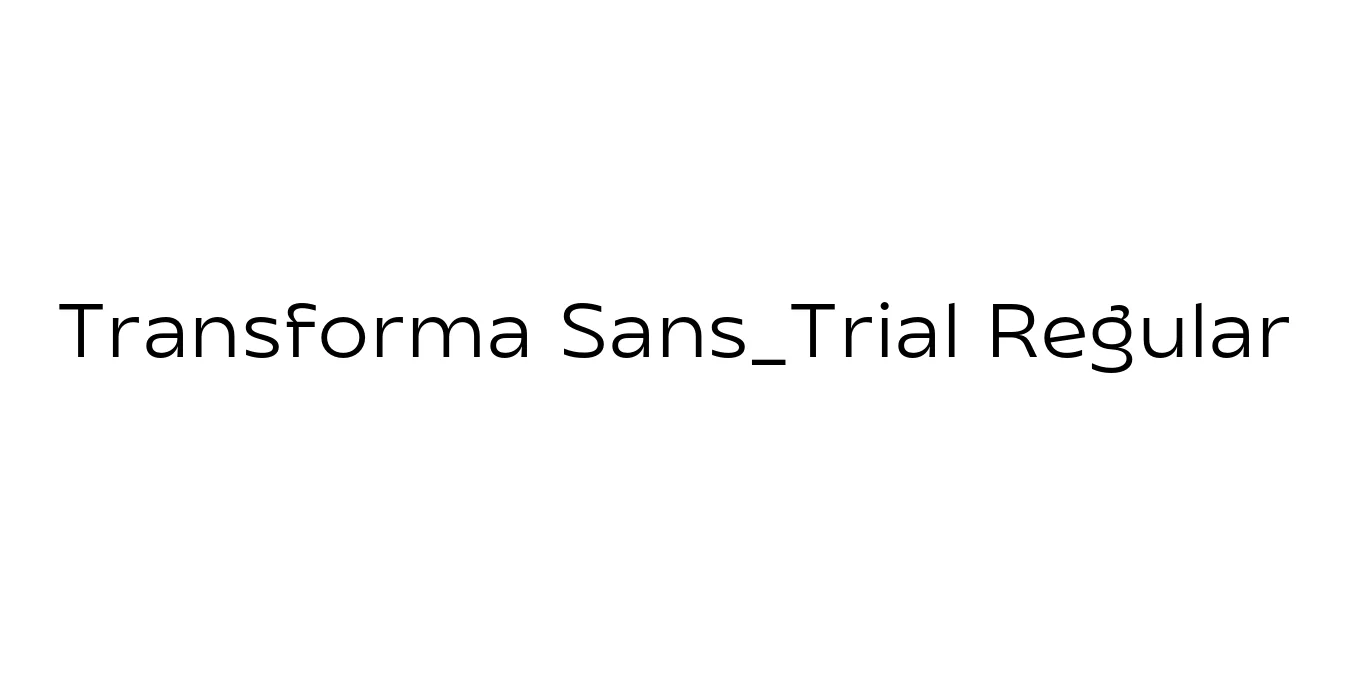
Transforma Sans_Trial Regular
Designed by Zetafonts (Francesco Canovaro, Cosimo Lorenzo Pancini, Andrea Tartarelli)
Transforma Sans is a sophisticated geometric typeface family designed by the Italian foundry Zetafonts. It was developed as a versatile tool for modern designers, emphasizing a clean, balanced structure that bridges the gap between classic modernist aesthetics and contemporary digital requirements. The Regular weight provides a neutral yet characteristic tone, making it highly effective for long-form reading as well as sharp display applications.
As part of the larger Transforma superfamily, this sans-serif variant focuses on legibility and rhythmic spacing. The trial version allows users to experience the font's precise optical corrections and elegant curves, which are engineered to maintain clarity across various screen resolutions and print environments. It remains a popular choice for designers seeking a typeface that conveys both technical precision and humanistic approachability.
Transforma Sans_Trial Regular Best Uses
Ideal for creating professional and trustworthy corporate visual identities.
Excellent for user interfaces and clean website body text.
Perfect for magazine layouts, brochures, and sophisticated print media.
Works well for impactful headlines and minimalist promotional materials.